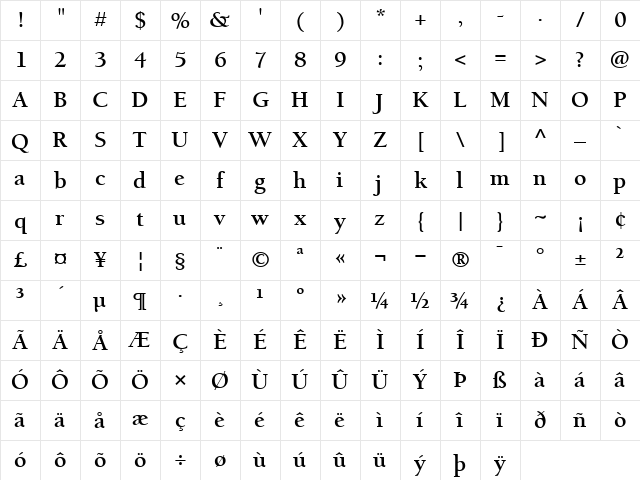
Berkeley Bold
Berkeley Family
Design Context for Berkeley
Berkeley is a composed and adaptable typeface that performs quietly and consistently across a wide range of design contexts. Its bold stroke weight gives it real presence on the page.